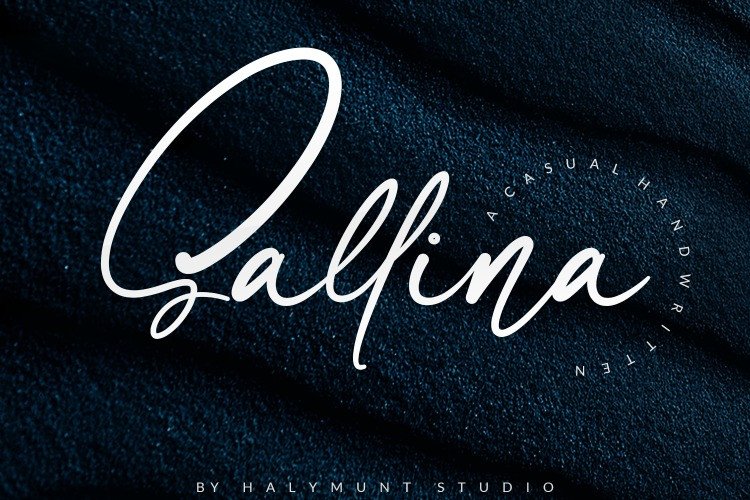
Sallina Script Font
Dear All. This is new Bold Script calligraphy style font. You’ll get that unique, handwritten look with the help of the ligatures. Introducing Sallina Font. It’s designed and shared by Halymunt Studio. Sallina Script is a stunning script featuring bold swashes.
Get inspired by its sophisticated charm! Very suitable for greeting cards, branding materials, business cards, quotes, posters, and more!This font are perfect for wedding postcard. Or you can create perfect and unique design of your logo, blog, stationery, marketing, magazines and more 🙂